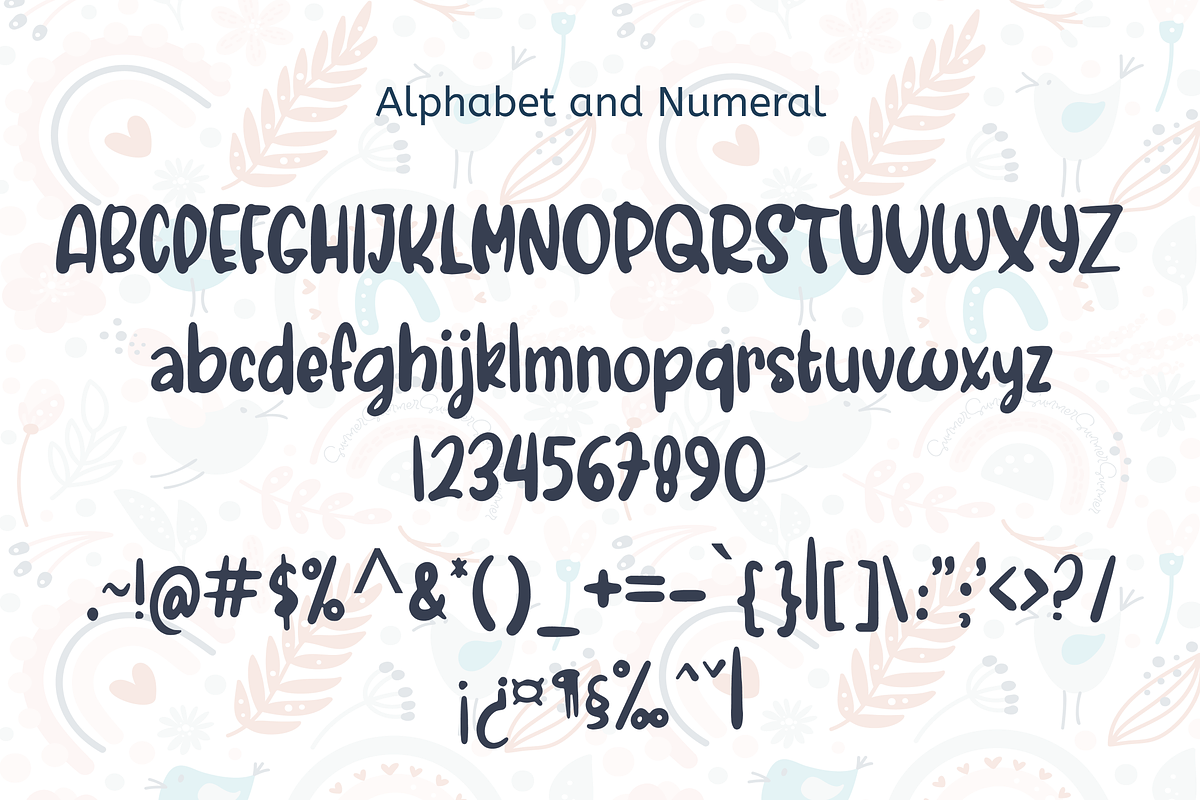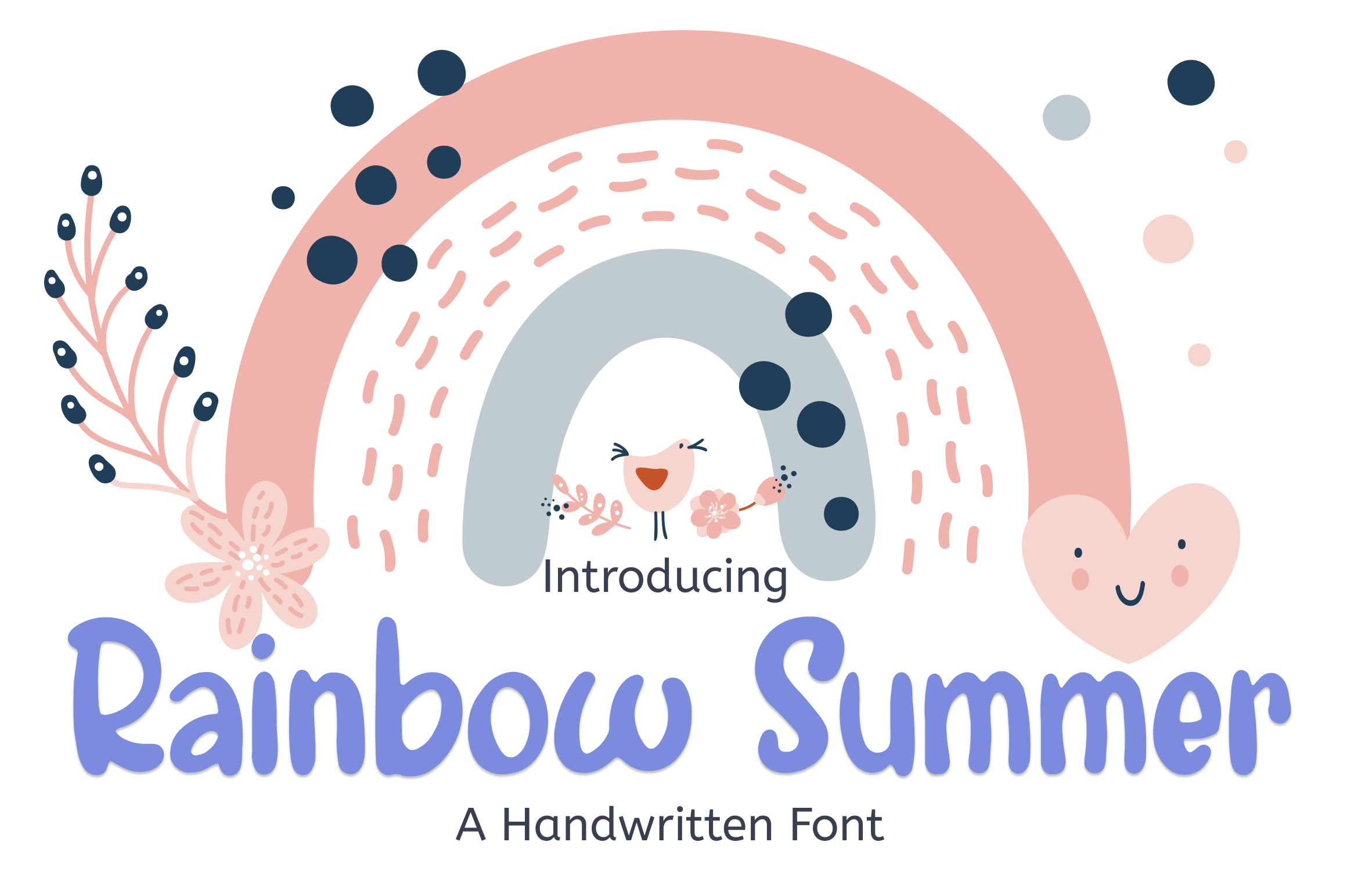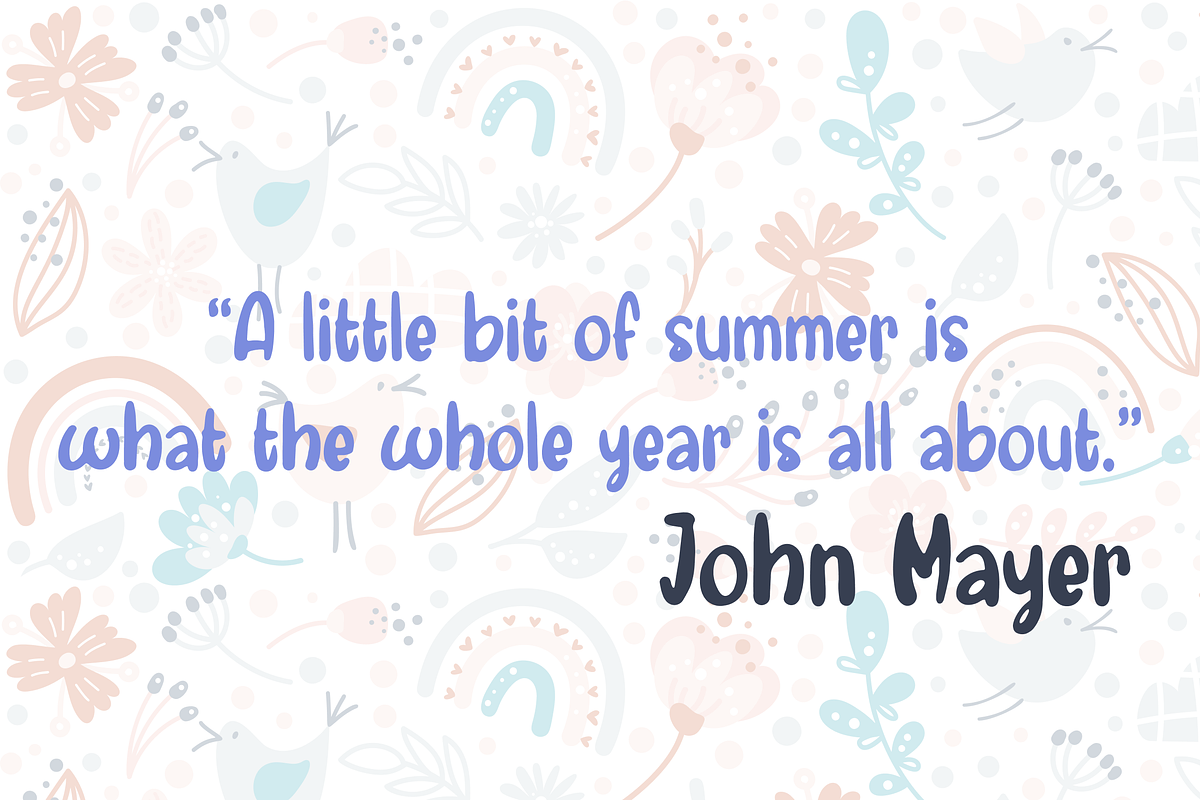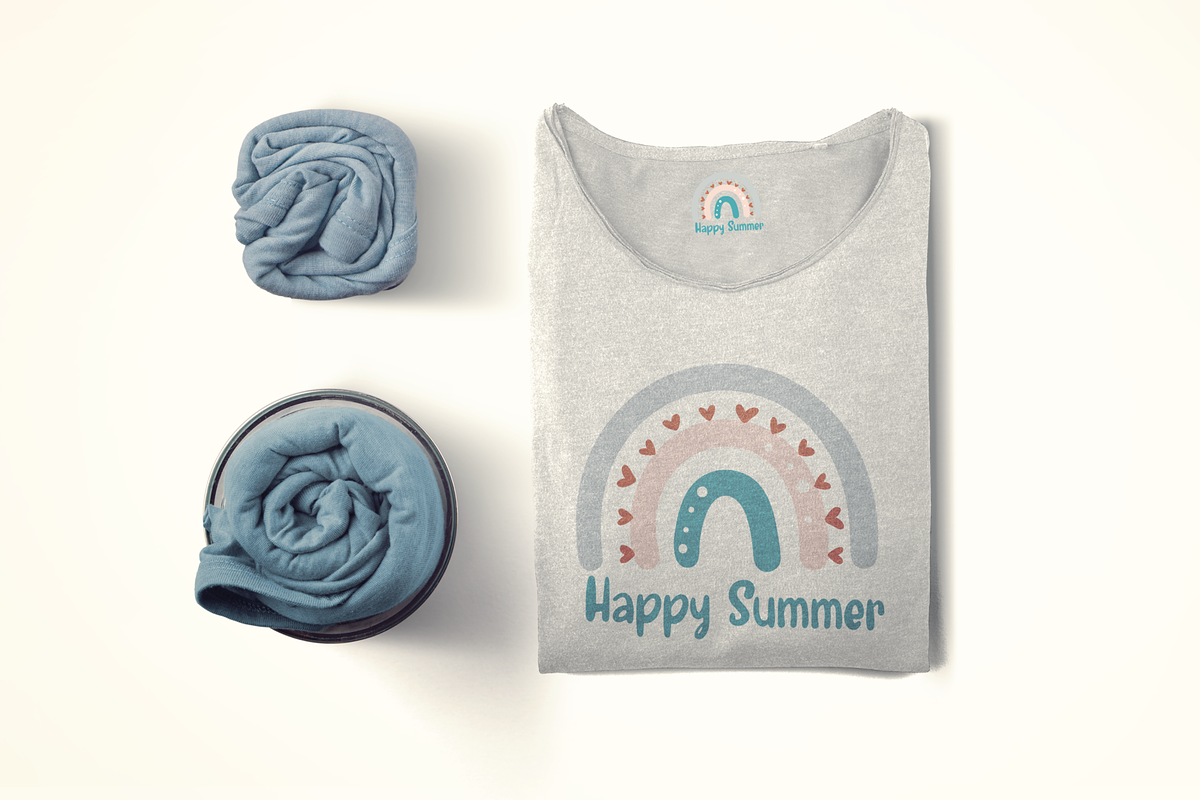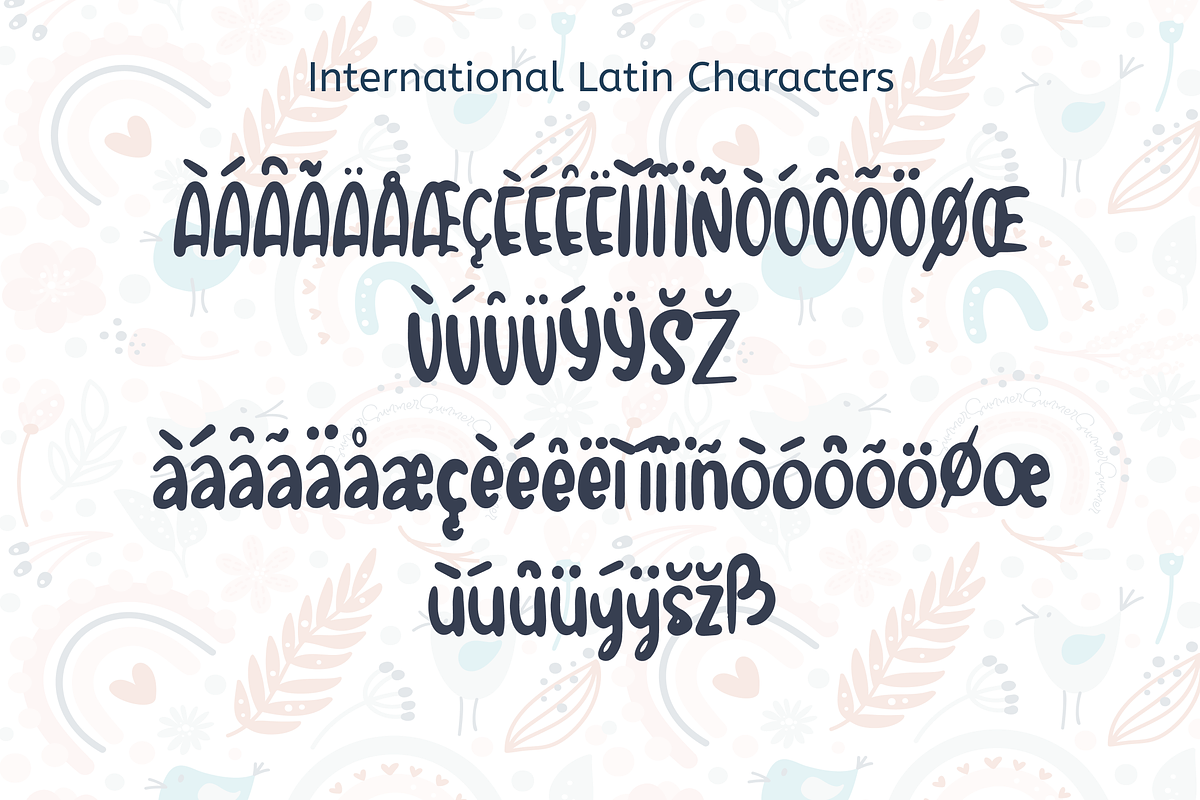
Rainbow Summer Font
Rainbow Summer is a cute and adorable handwritten font. It is well-shaped, bright, and perfect for many design projects and also for crafting ideas that need a friendly and playful touch.